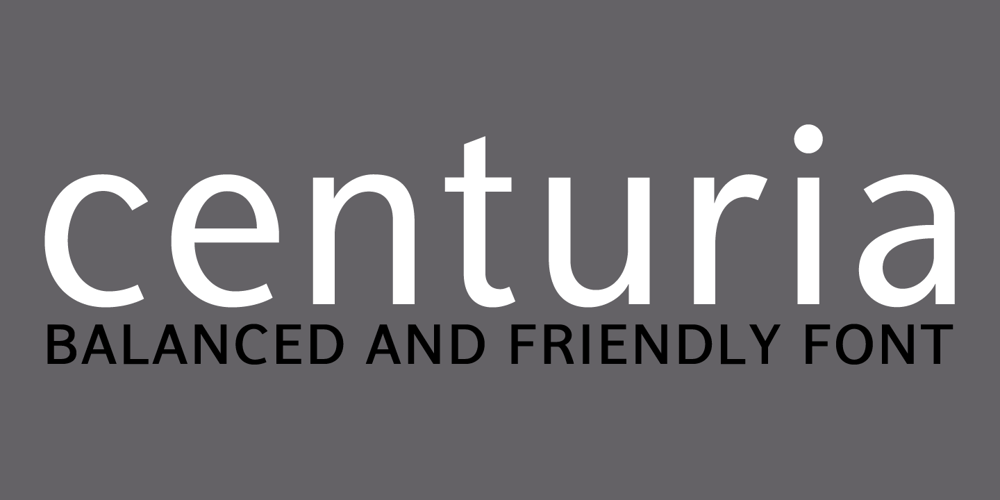
Centuria Font Family was designed by Miguel Catopodis and published by Catopodis. Centuria contains 6 styles and family package options. Centuria is a sanserif humanistic family. Unlike many sanserif fonts, Centuria has modulated strokes and a moderate x-height. Centuria has a contemporary design with a soul of early grotesque fonts. Its slightly condensed letterforms and its short descenders allow a considerable amount of text per column. Centuria is very readable at small sizes! It is suitable for use in: newsletters, magazines, newspapers or just for any simple editorial application. Works very well in continuous text, short paragraphs or headlines. Provides a balanced and friendly texture. Match very well with Century.